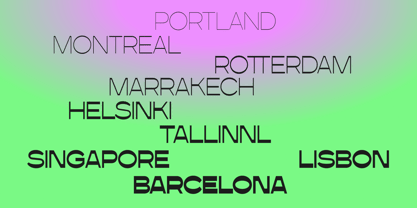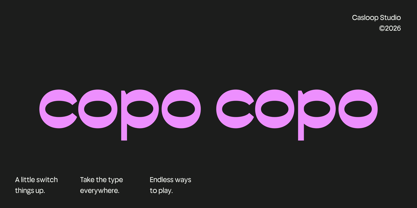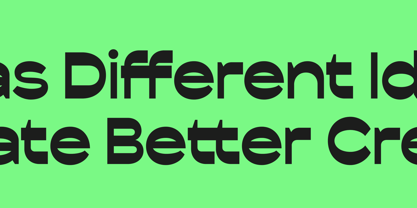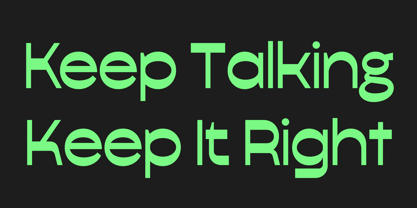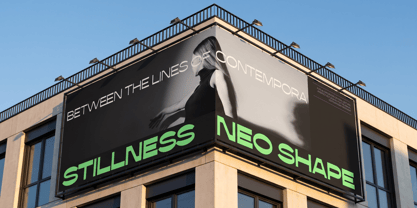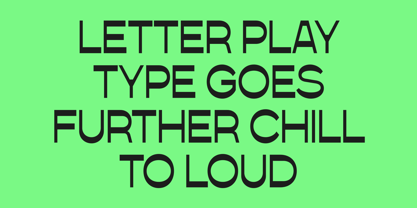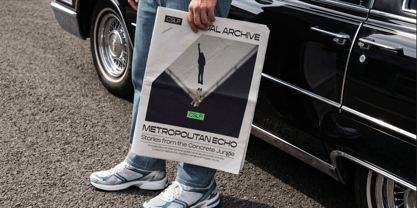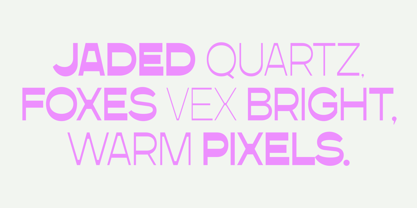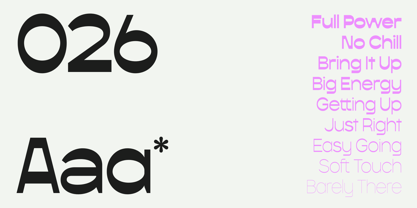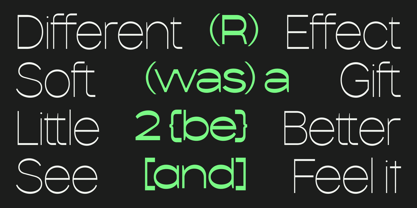
Copo Copo
par Casloop Studio
La famille de polices Copo Copo a été conçue par Wantara Putra et publiée par Casloop Studio. Copo Copo contient 18 styles et options de package familial. En savoir plus sur cette famille
Copo Copo is a clean reversed contrast sans serif designed to bring a distinctive technical edge to modern corporate typography. Its defining characters Q, R, a, e, g, and S combine geometric construction with reversed contrast, shifting visual emphasis across the strokes to create a unique yet controlled appearance. Strong horizontal accents establish a precise, technical rhythm, while the extensive 18-weight system with Extended styles provides flexibility across scales and applications. Copo Copo is ideal for corporate branding, technology identities, display typography, digital products, and visual systems that require a clean foundation with an unconventional, forward-thinking character. Recommended pairing with: Inter, IBM Plex Sans, Space Grotesk, Helvetica Neue, Univers, DIN